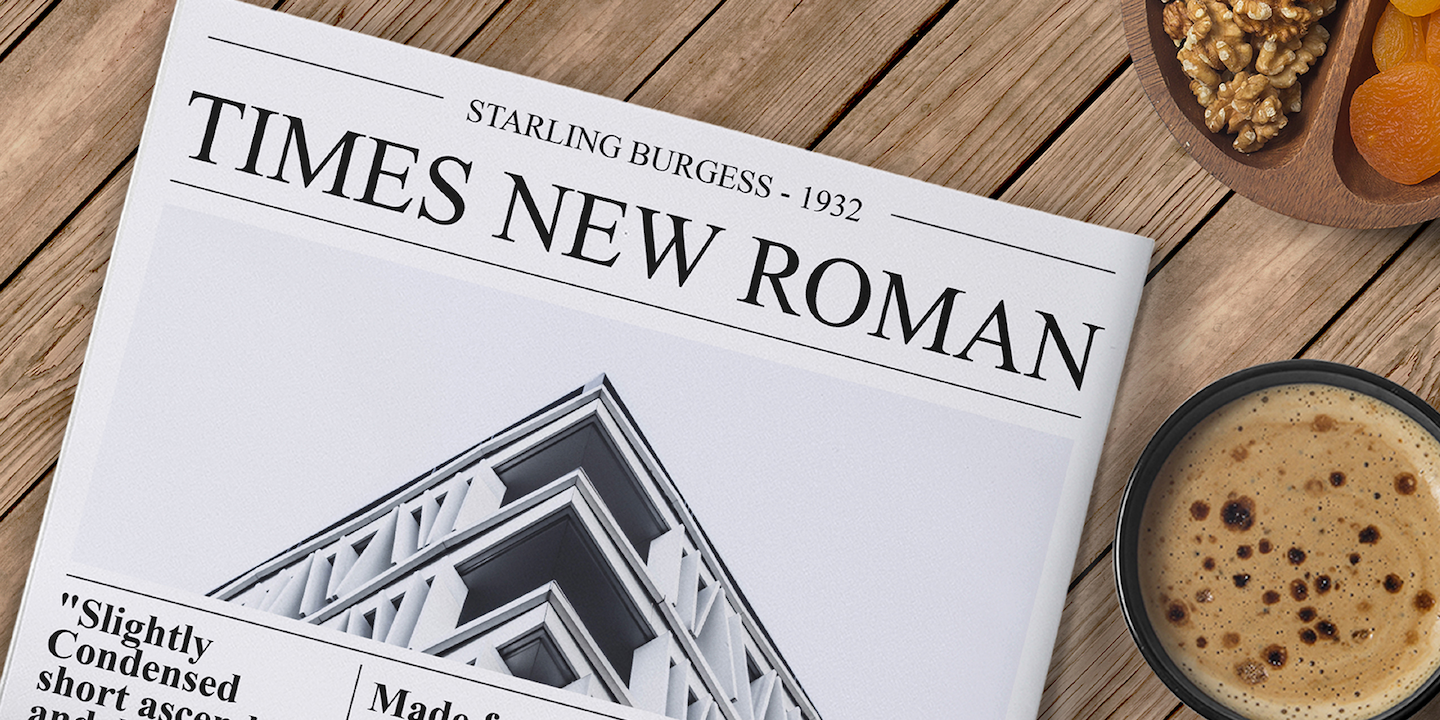
Times New Roman Font is perfect for academic papers, professional documents, business correspondence, book publishing, newspaper articles, legal documents, formal presentations, and corporate branding materials.
This classic serif typeface is exciting because it combines exceptional readability with timeless elegance, making it the gold standard for professional typography that has dominated printed materials for decades.
The Times New Roman Font family includes regular, bold, italic, and bold italic variants, providing comprehensive typographic flexibility for any design project.
Whether you're creating professional documents or designing elegant publications, Times New Roman Font Free Download offers unmatched versatility and reliability. This distinguished serif font delivers crisp, clear text that enhances readability across both digital and print media. Its balanced letterforms and optimal character spacing make it ideal for extended reading, while its authoritative appearance commands respect in formal communications. The font's proven track record in academic and professional environments demonstrates its enduring value for serious typography needs.